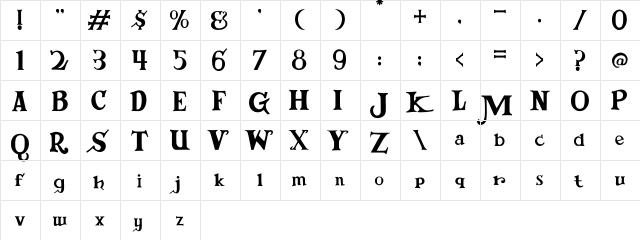
Muppet Font Regular
Design Context for Muppet Font Typeface
Muppet Font is a composed and adaptable typeface that performs quietly and consistently across a wide range of design contexts.